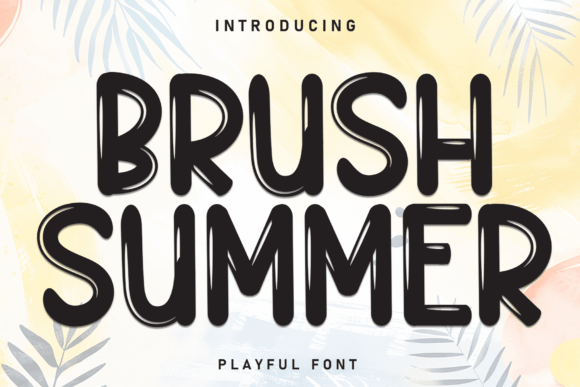
Introducing Brush Summer Font: The Perfect Addition to Your Summer Designs
Summer is here, and what better way to capture the essence of the season than with a font that exudes warmth, friendliness, and a dash of playfulness? Look no further than Brush Summer Font, a stunning brush display font that’s sure to elevate your designs and leave a lasting impression.
What is Brush Summer Font?
Brush Summer Font is a beautifully crafted font that splashes onto the page with sun-warm strokes and an easy, hand-painted swagger. Its thick, brush-built letterforms feature rounded terminals and a relaxed, bouncy baseline that feels friendly yet bold. The generous x-height and clean counters keep headlines crisp at a glance, making it perfect for a wide range of design applications.
Key Features of Brush Summer Font
- Sun-warm strokes: Brush Summer Font features warm, sun-kissed strokes that evoke the feeling of a summer’s day.
- Hand-painted swagger: The font’s hand-painted feel gives it a unique, organic look that’s perfect for designs that need a personal touch.
- Thick, brush-built letterforms: The font’s letterforms are built with thick, brush-like strokes that give it a bold, eye-catching appearance.
- Rounded terminals: The rounded terminals add a touch of friendliness and approachability to the font.
- Relaxed, bouncy baseline: The font’s baseline has a relaxed, bouncy feel that adds to its playful, carefree vibe.
- Generous x-height: The font’s generous x-height makes it easy to read, even at smaller sizes.
- Clean counters: The clean counters help to keep the font looking crisp and clear, even at a glance.
Perfect for Summer Designs
Brush Summer Font is perfect for a wide range of summer designs, including:
- Beach promos: The font’s sun-kissed feel makes it perfect for promoting beach events, sales, or activities.
- Lemonade stands: The font’s playful, carefree vibe is perfect for creating eye-catching signs and promotions for lemonade stands and other summer treats.
- Festival posters: The font’s bold, eye-catching appearance makes it perfect for creating posters and flyers for summer festivals and events.
- Stickers: The font’s playful, hand-painted feel makes it perfect for creating fun and colorful stickers for summer events and promotions.
- Tees: The font’s bold, eye-catching appearance makes it perfect for creating eye-catching t-shirt designs for summer.
- Packaging: The font’s friendly, approachable feel makes it perfect for use on summer-themed packaging, such as ice cream containers, beach toys, and more.
Pairing Suggestions
Brush Summer Font pairs perfectly with a neat sans font for contrast, or can be used on its own to make a bold statement. Some suggested pairing fonts include:
- Open Sans: A clean, modern sans font that provides a perfect contrast to the playful, hand-painted feel of Brush Summer Font.
- Lato: A sleek, modern sans font that pairs well with the font’s bold, eye-catching appearance.
- Merriweather: A classic serif font that adds a touch of sophistication and elegance to designs.
Brush Summer Font is the perfect addition to your summer designs, offering a unique blend of warmth, friendliness, and playfulness that’s sure to capture the essence of the season. With its thick, brush-built letterforms, rounded terminals, and relaxed, bouncy baseline, this font is perfect for a wide range of design applications, from beach promos and lemonade stands to festival posters and packaging. Pair it with a neat sans font for contrast, or let it shout solo – wherever you need upbeat, vacation energy, Brush Summer Font is the perfect choice.